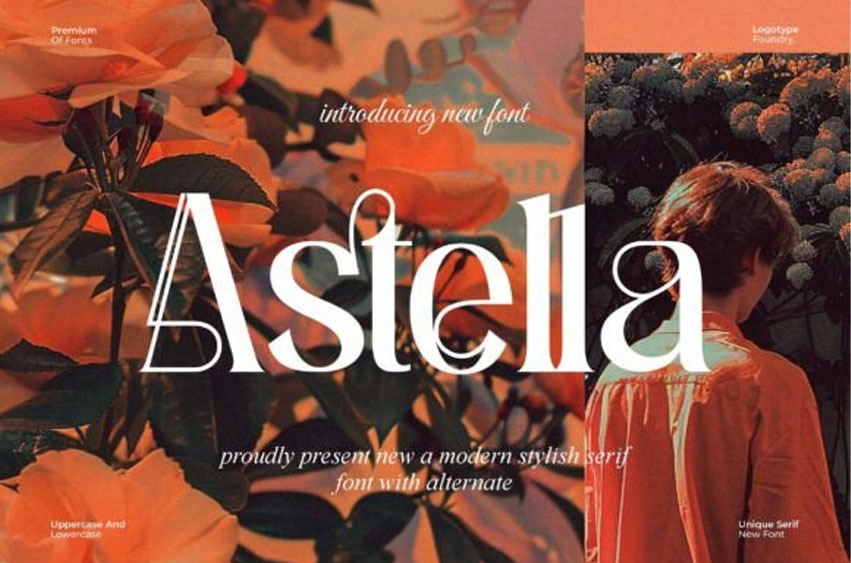
Astella Font
Astella Font is a luxurious serif font that blends modern curves with elegant flourishes.
Featuring unique alternates and a romantic presence, it’s ideal for high-end logos, magazines, perfumes, and creative branding that demands sophistication.